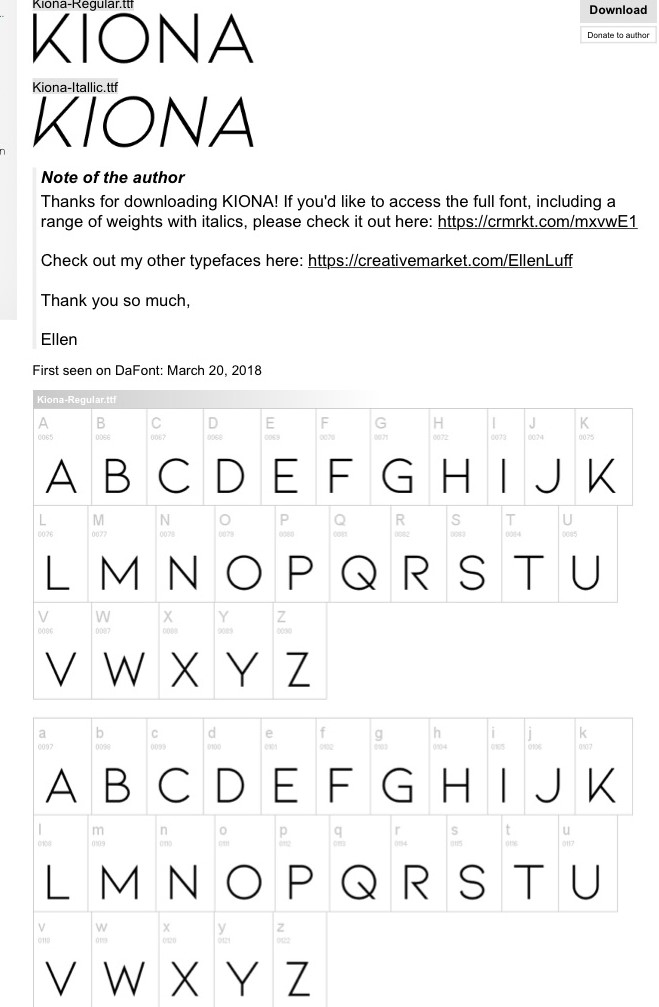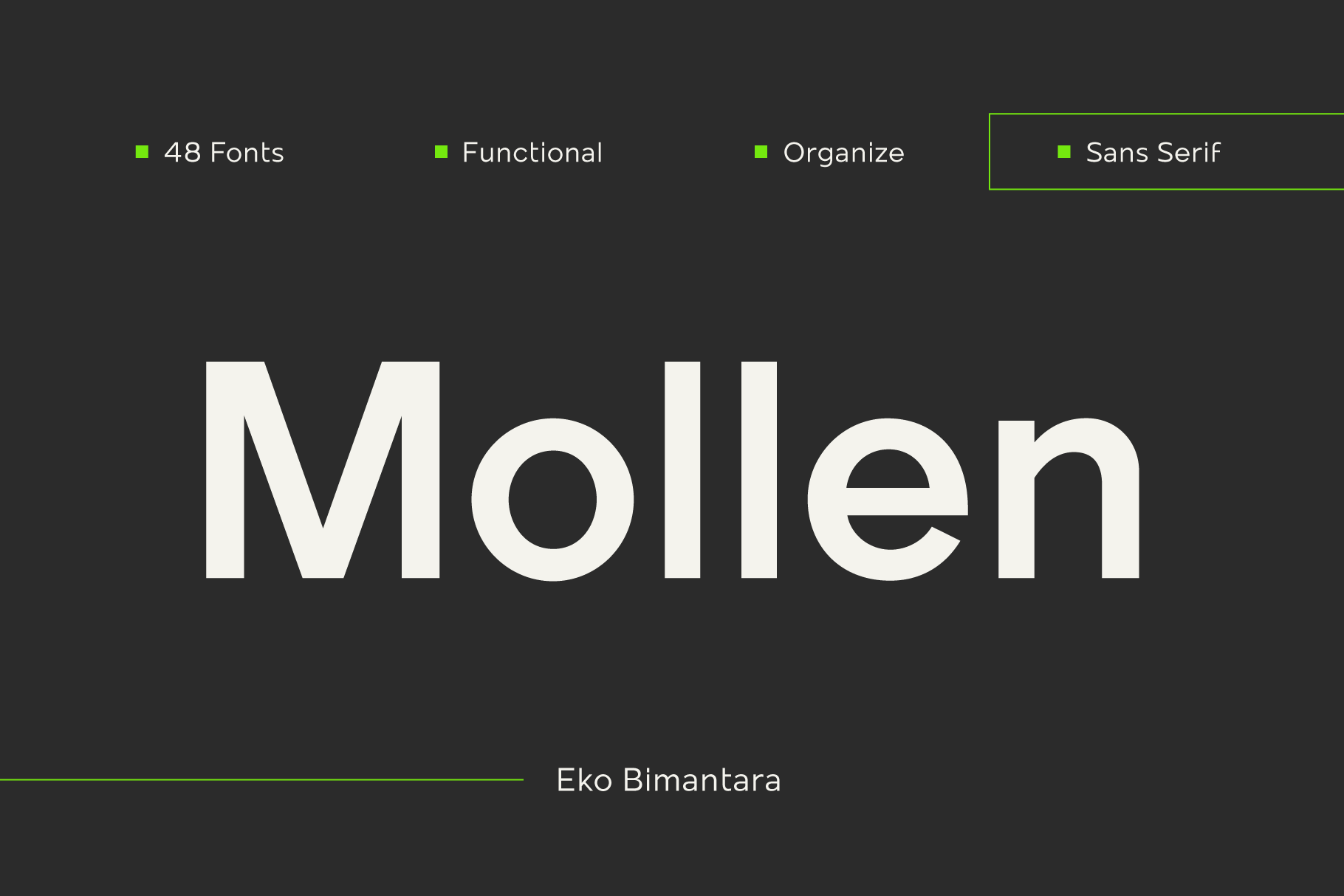
The typeface represents one aspect of a font.
What is sans serif font. The evolution of serif vs. Usage for projects involving lengthy text such as books newspapers and most magazines serif typefaces are the most commonly used typestyle. In a short answer yes. Popular sans serif fonts include helvetica avant garde arial and geneva.
Popular typefaces include times roman helvetica and courier. There are two general categories of typefaces. Wrapping up the difference between serif and sans serif fonts. In the print world serif typefaces are almost universally used for setting running body text however on the web sans serifs dominateon lower resolution displays sans serifs tend to display better however higher resolution displays can better handle the fine.
Sans serif fonts say modern approachable and clean. The font also includes such characteristics as size weight italics and so on. Not every serif typeface is more readable than a sans serif as demonstrated by the fairly ornate itc kallos left compared with avenir next right. Because of the difference between serif and sans serif fonts its important to be aware of a few key things.
A sans serif font also called a sans or gothic font is a typeface that lacks serifs the small ornaments at the bottoms and tops of letters. Samples of sans serif typefaces typeface name example 1 example 2 example 3 agency fb designer. Dont mix too many fonts in the one design. Are brands embracing one font category more than the other.
The font used on many websites is in this font and you may note that it looks relatively plain and unadorned and also that it renders crisply and clearly on the computer screen. But whats going on in the design world at large. For this reason they are used most often for short text components such as headlines or captions. While serif fonts focus heavily on embracing tradition and history sans serif fonts take the opposite approach and embrace simplicity and the feeling of being modern.
This list of sans serif typefaces details standard sans serif fonts used in printing classical typesetting and printing. According to most studies sans serif fonts are more difficult to read. Sans serif typefaces first originated in the eighteenth century but didnt see widespread use until the nineteenth century. Serif and sans serif.
What is serif and sans serif font. Sans serif fonts have become the most prevalent for display of text on computer screens. Keep it to 2 fonts for a ratio of serif vs sans serif fonts one of each is probably enough. Clearly choosing serif vs.
Sans serif fonts on the other hand communicate a completely different message. Sans serif fonts tend to have less stroke width variation than serif fonts. Sans serif fonts play a huge part in the branding process. Typeface a design for a set of characters.